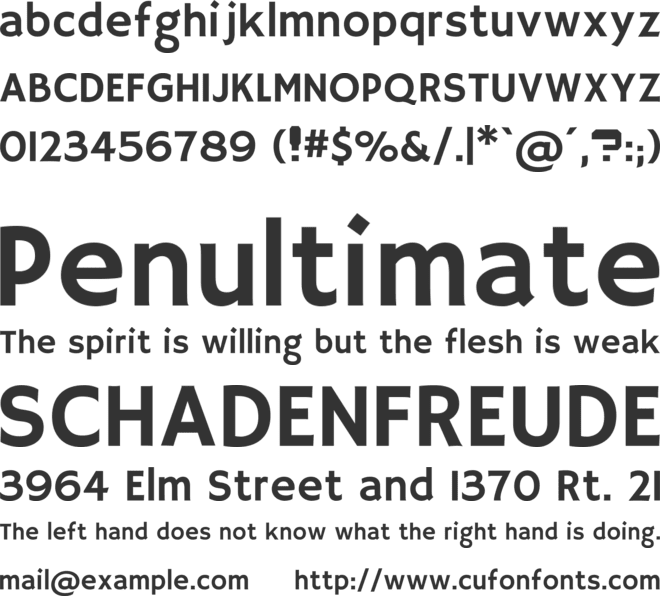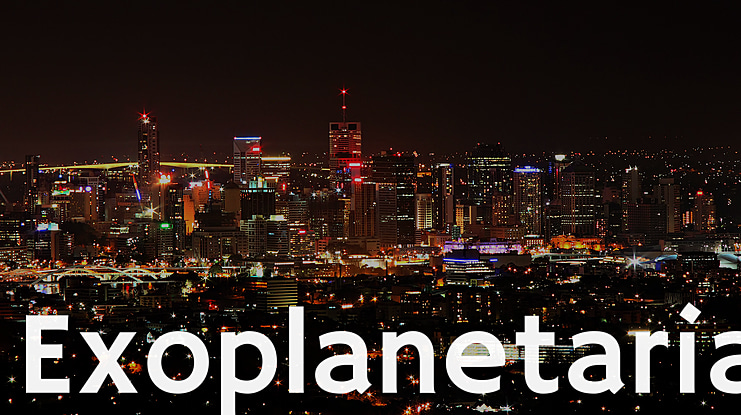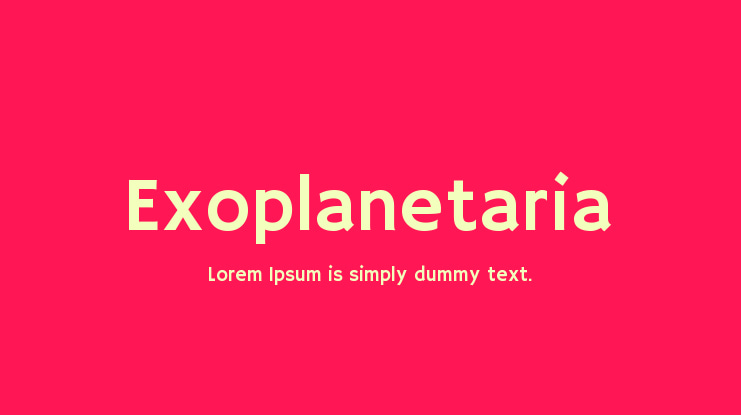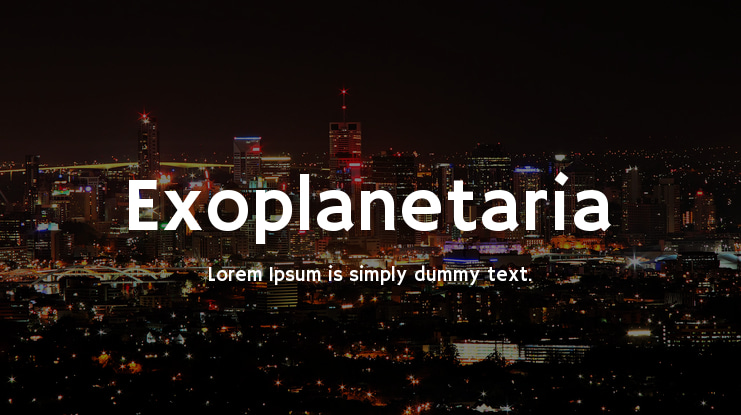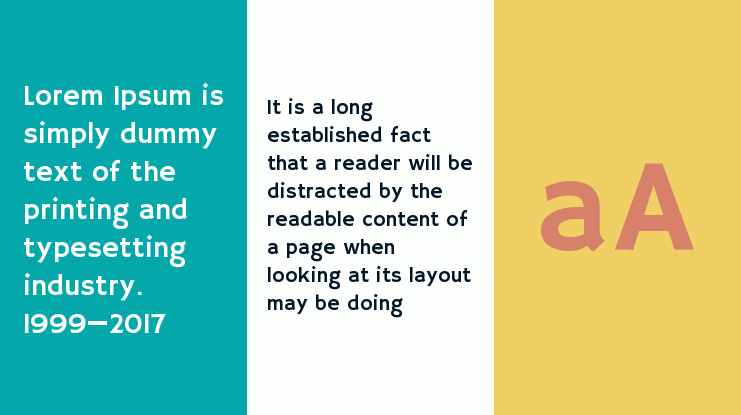
Exoplanetaria Font
Exoplanetaria is a new unique design Japanese katakana font. It features most of the syllables consist with the 1/4 cut of a corner-cut square. Includes the alphabets and numbers from Hammersmith One by Sorkin Type, 11 kanji characters and some characters from the JIS encoding.